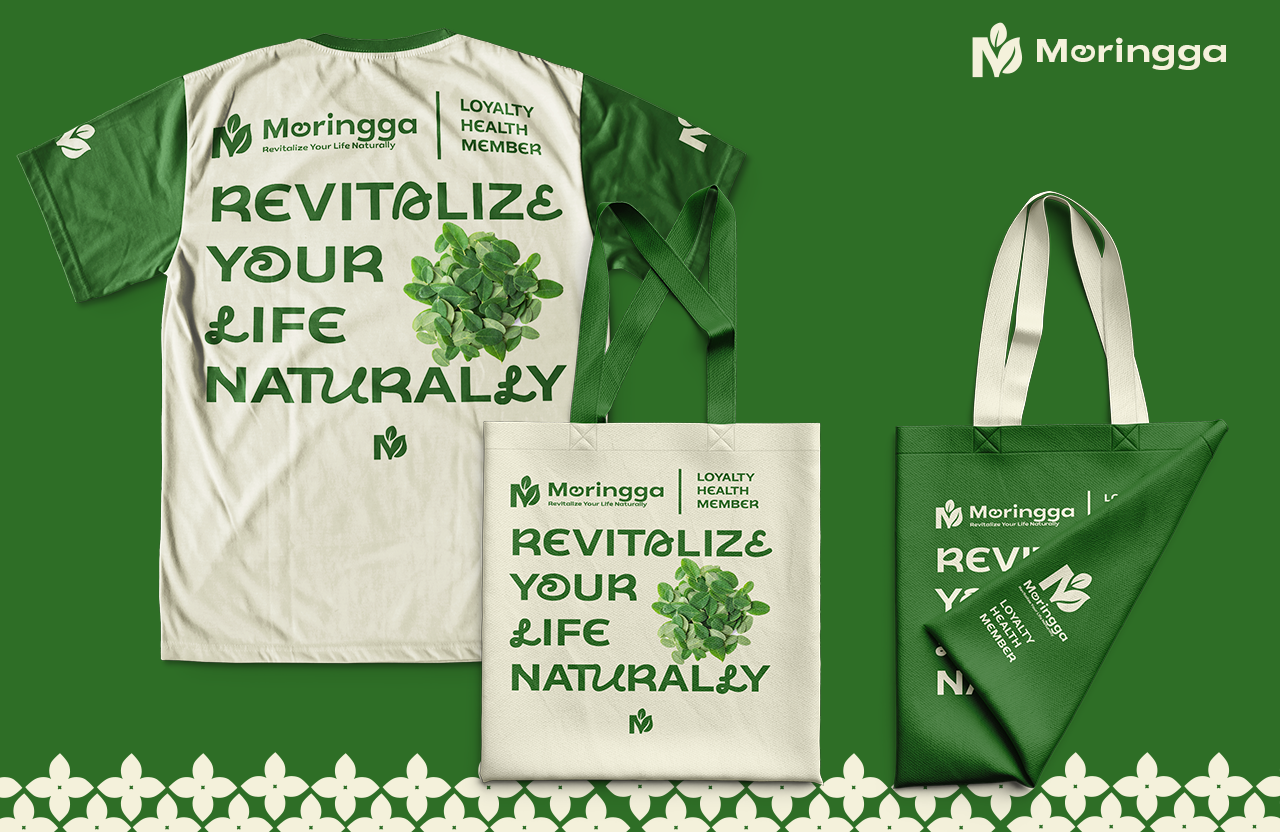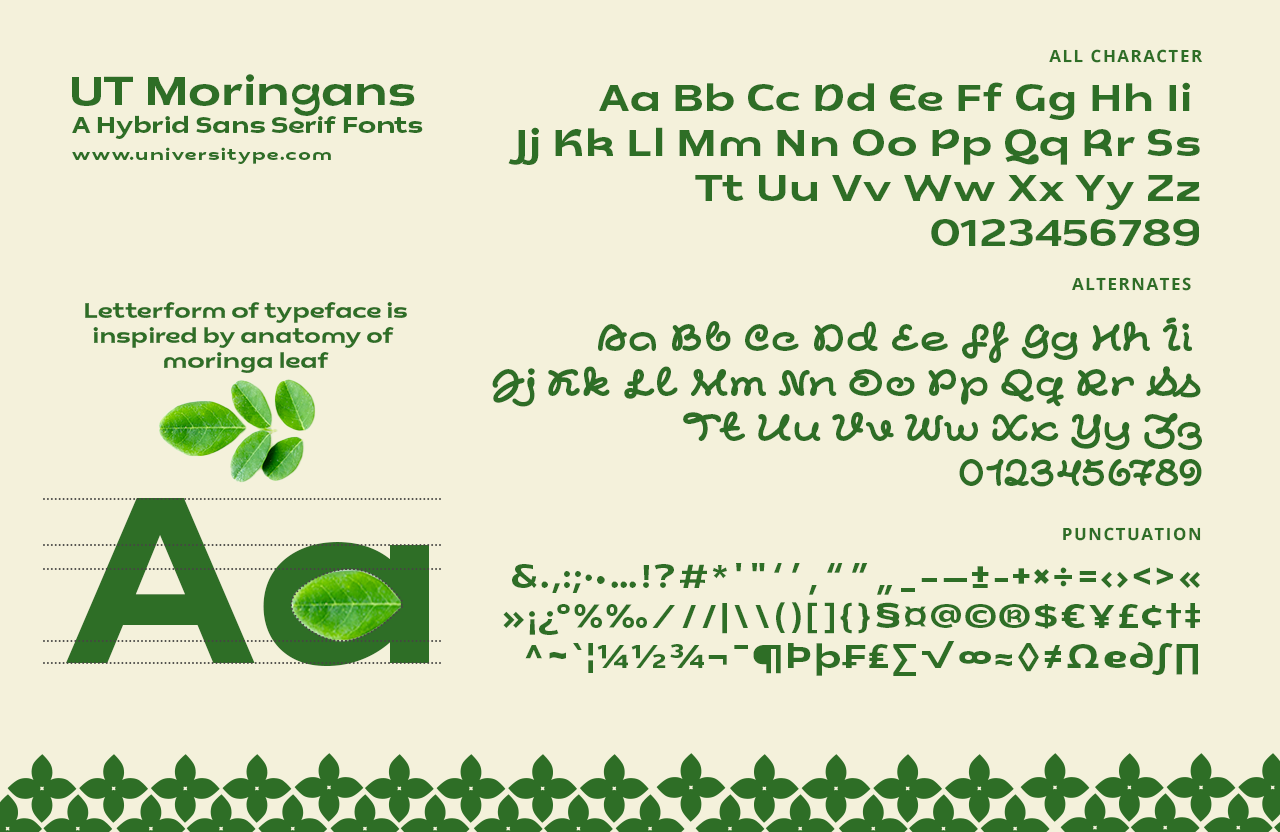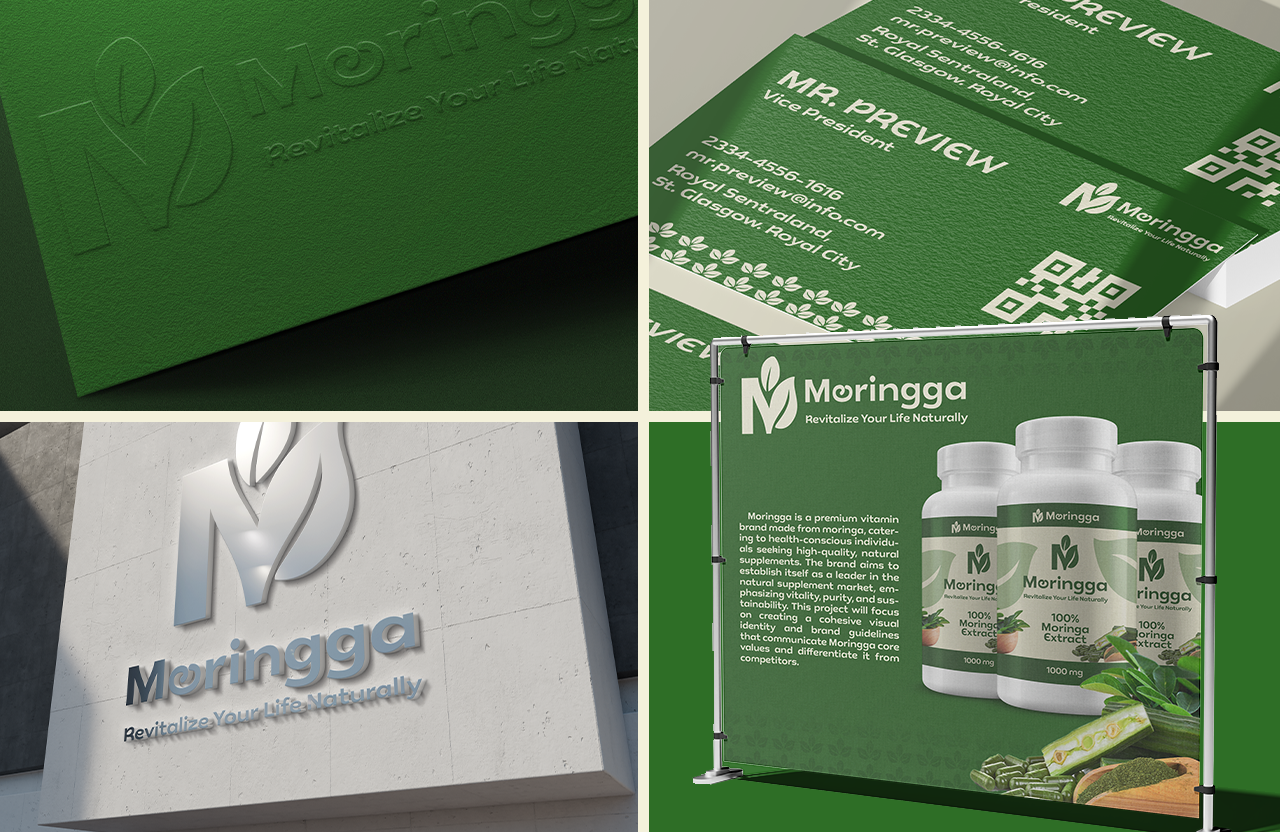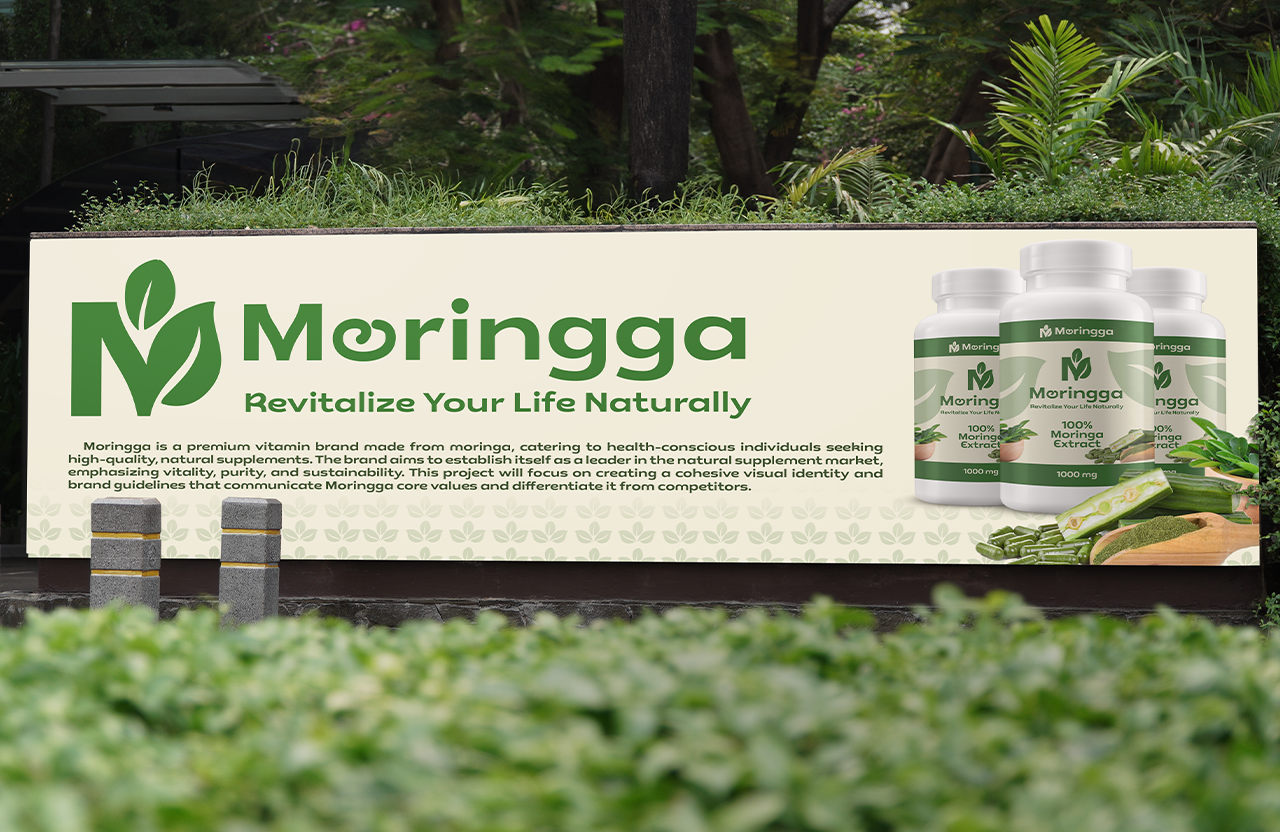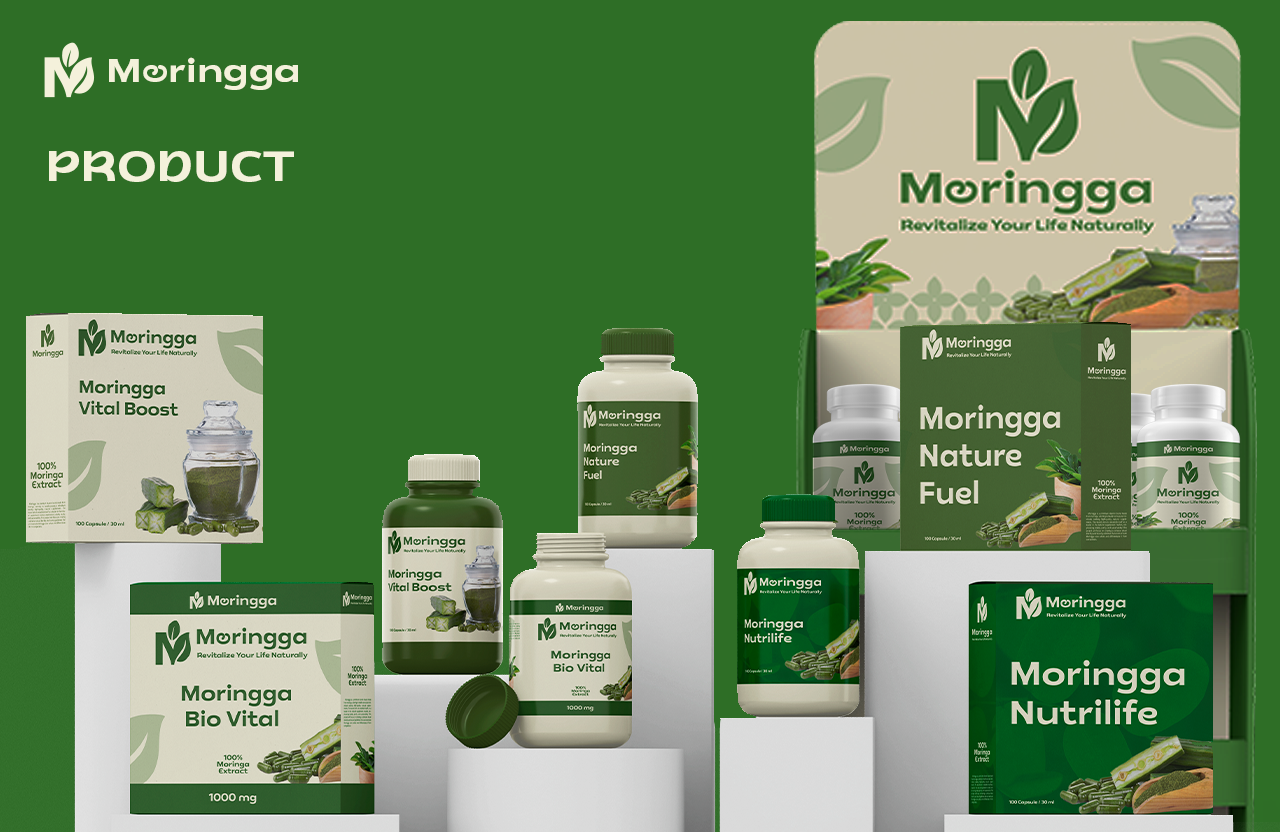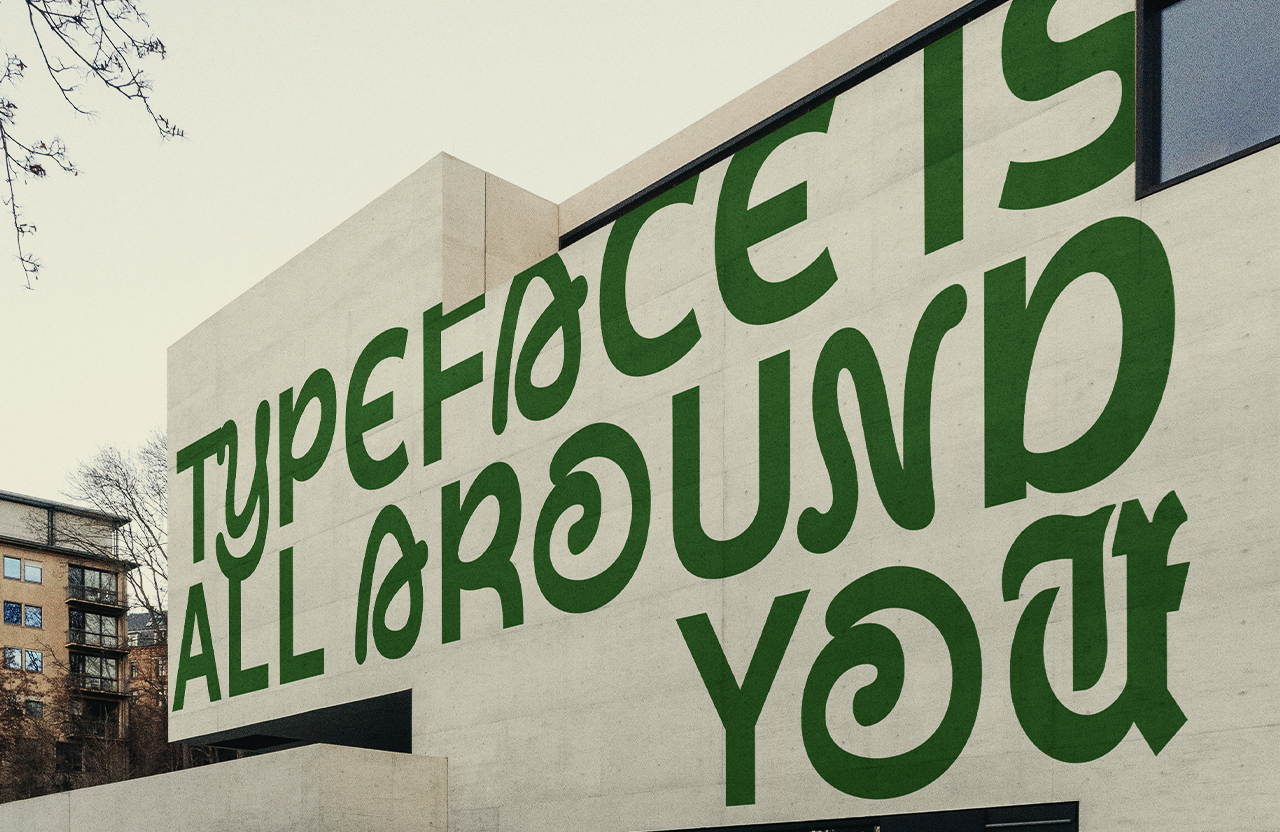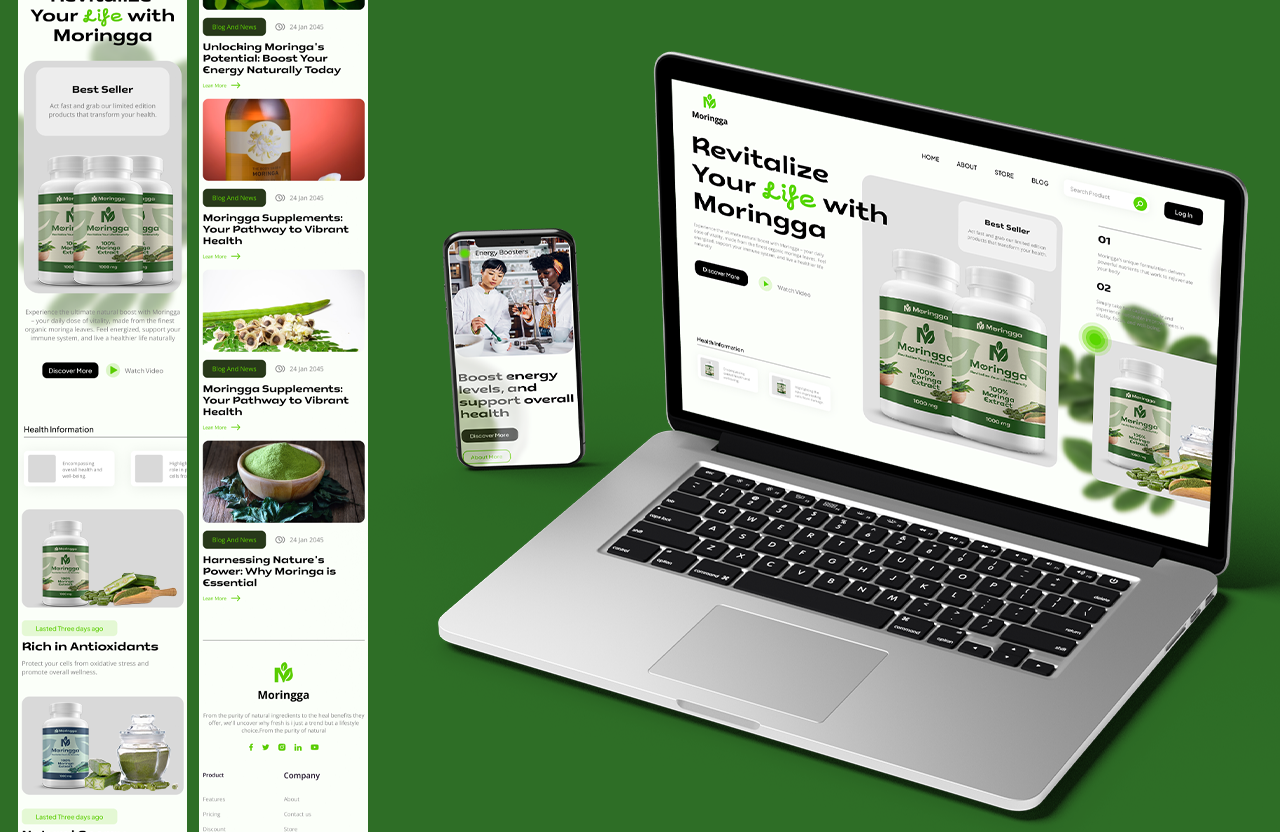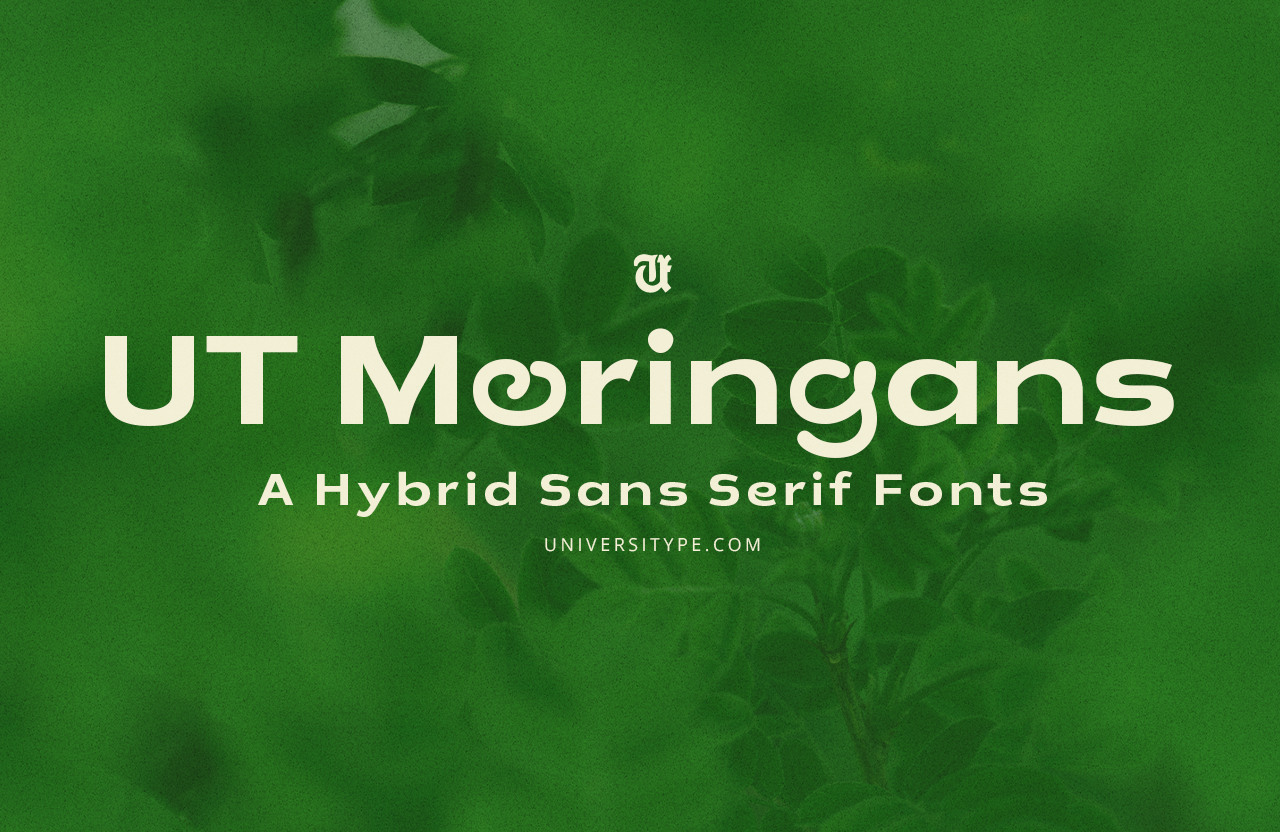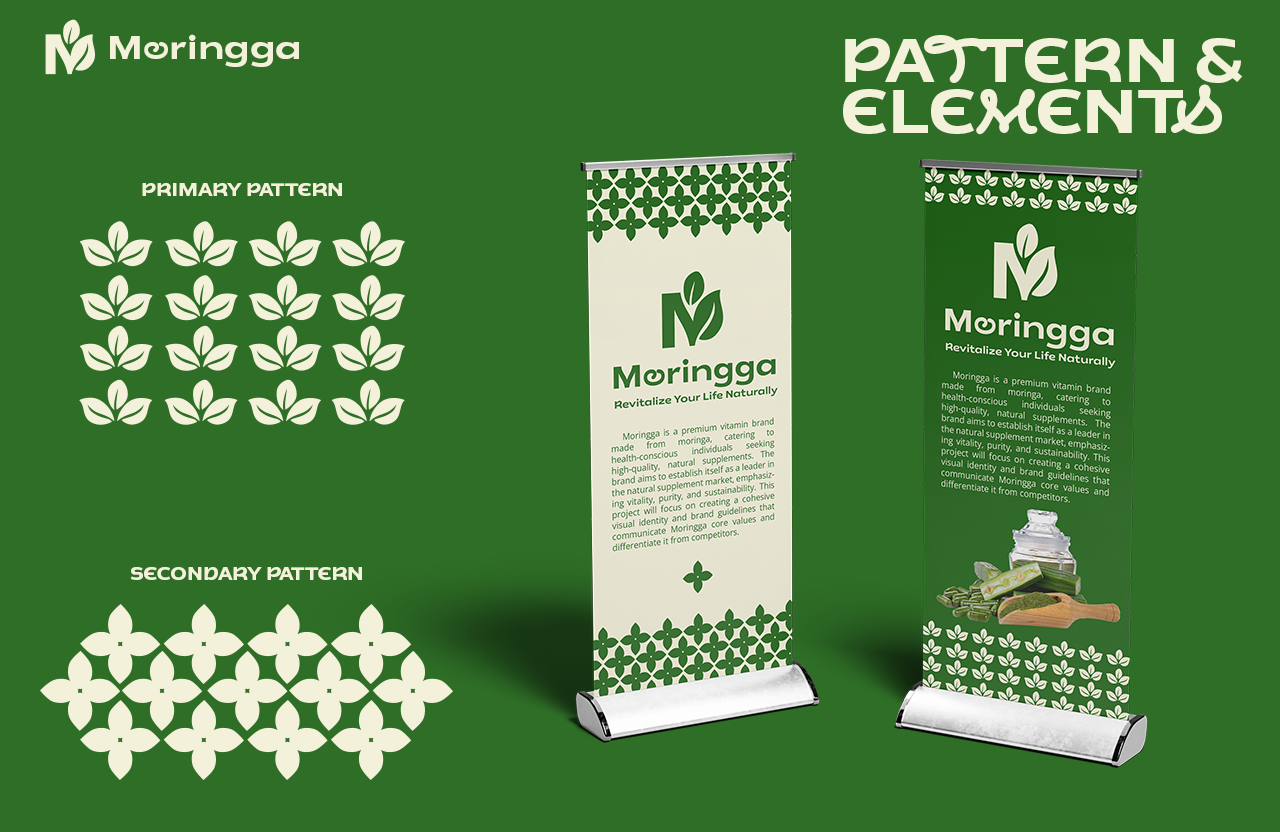
UT Moringans - A Hybrid Font
The design of UT Moringans draws inspiration from the moringa leaf, known for its rounded shape and smooth edges. Often referred to as the “miracle tree,” the moringa symbolizes growth, sustainability, and well-being. These qualities have been subtly infused into every curve and contour of the font’s letterforms.
This typeface bridges two worlds: the geometric structure of sans serifs and the fluid organic forms found in nature. As a result, UT Moringans feels fresh, familiar, and approachable, making it suitable for both professional and playful applications. Its subtle botanical character allows it to complement eco-conscious branding effortlessly.